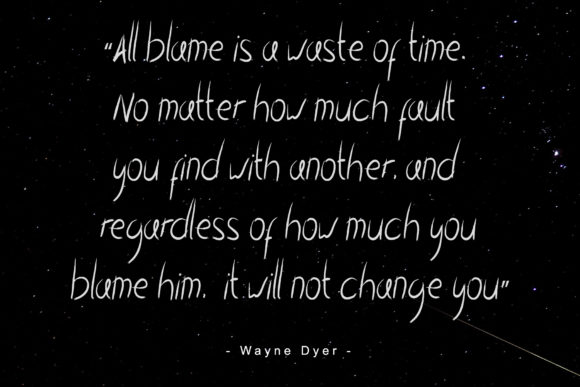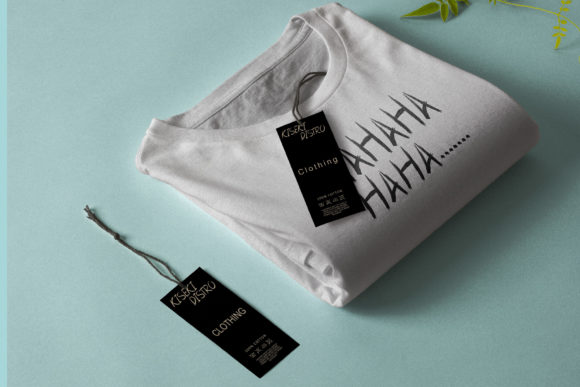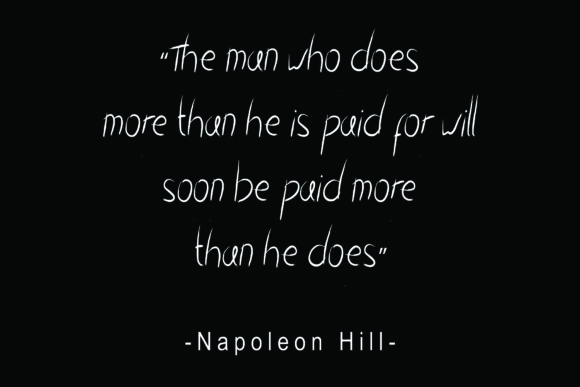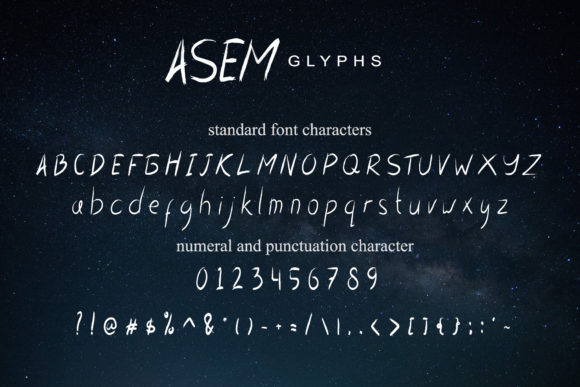
HomeScript FontsAsem Font Script Fonts Asem Font FacebookXPinterestWhatsApp Asem Font Poster 2 Asem Font Poster 3 Asem Font Poster 4 Asem Font Poster 5 About Asem Font Asem is a natural brush font with a raw and natural feel. It will turn any design idea into a standout! DOWNLOAD NOW People also explored Bible Font Bignature Font Mondylove Font White Mug Mockup with Chocolate Muffins on Plate Moon Font Spagbowl Font Bittersoni Font Summer Night Font Sunday Thinker 313 0 TagsAsem Font Previous articlePoppy FontNext articleAmania Font LEAVE A REPLY Cancel reply Comment: Please enter your comment! Name:* Please enter your name here Email:* You have entered an incorrect email address! Please enter your email address here Website: Save my name, email, and website in this browser for the next time I comment. Personal Use Free Angelika Playful Personal Use Free Read more about this font Colourbars Personal Use Free Read more about this font Hillgates Personal Use Free Read more about this font 1313 Mockingbird Lane Personal Use Free Read more about this font BLOG Best Fonts for T-Shirt Design – Top 2025 Picks In 2025, t-shirt design has become more than just fashion—it's a form of self-expression. Whether you're... How to Cut Any Font on Cricut: Convert a Font to SVG (Free) Transform Your Website: Elevate Your Typography with 7 Best Web Font Generators 5 Fonts That Will Dominate Design Trends in 2026